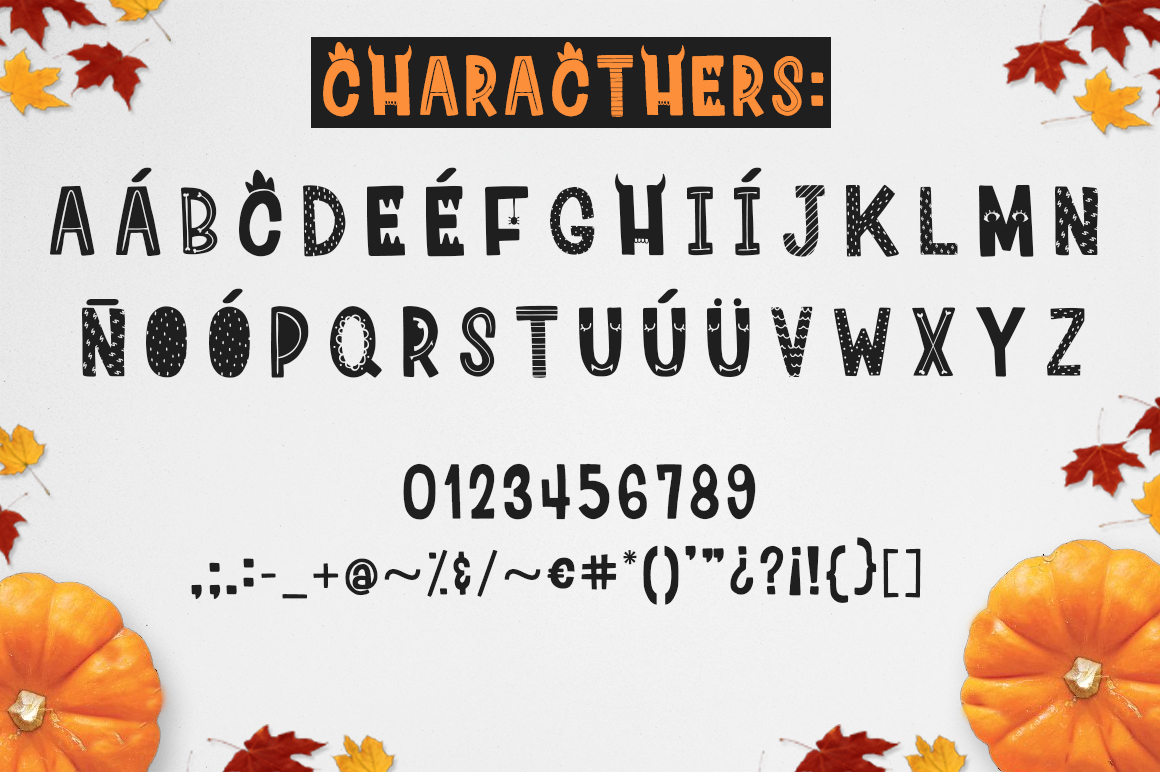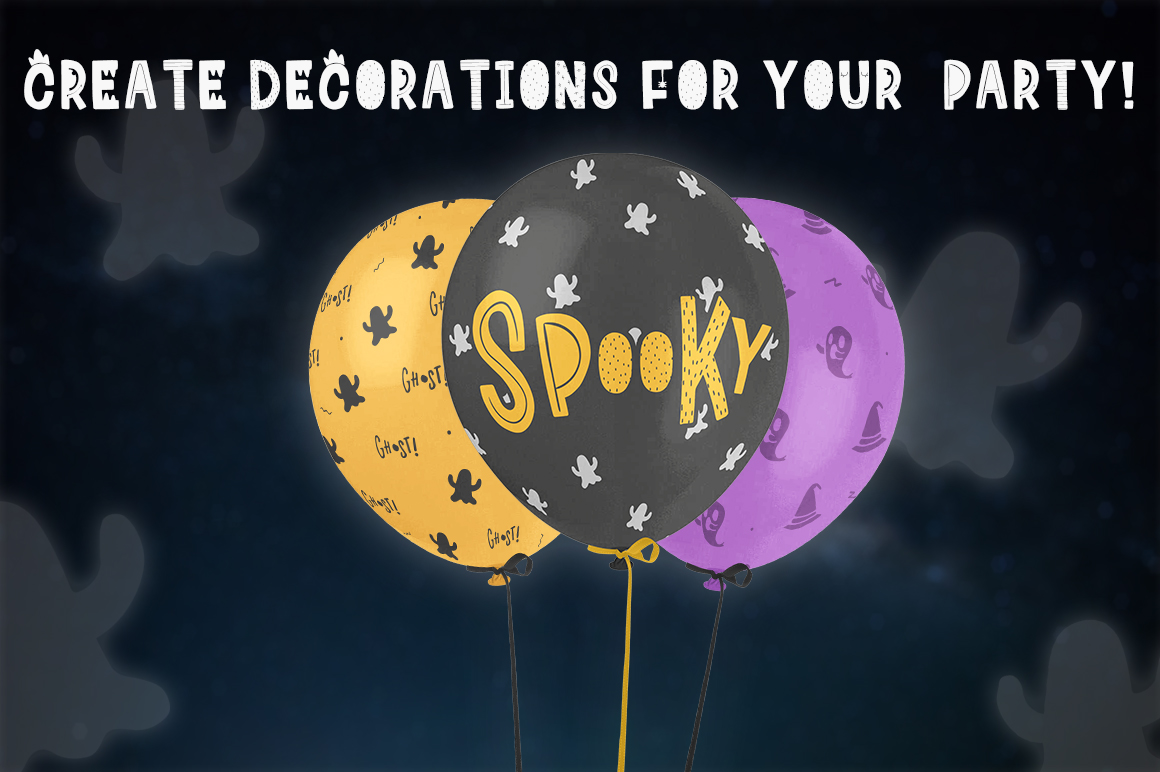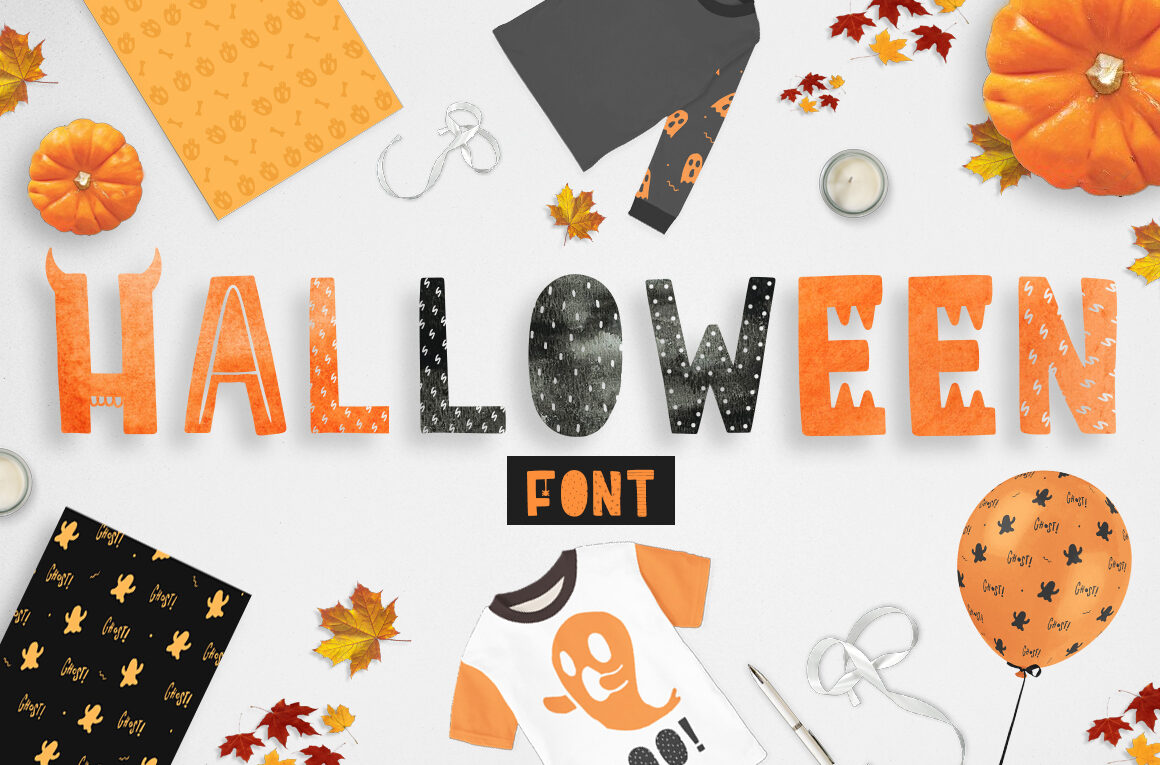
Getting Ready for a Spooktacular Halloween with Ha-Halloween Font
October is just around the corner, and we all know what that means: Halloween! The best and most fun holiday of the year is coming, and to help you get into the spooky spirit, we’re excited to present an awesome design kit that includes everything you’ll need to create some spooky and beautiful designs. This kit includes a font, brushes, patterns, and illustrations – perfect for creating invitations, merchandise, decor, flyers, and more!
Introducing the Ha-Halloween Font
The star of the show is the Ha-Halloween Font, a specially crafted typeface designed to capture the essence of Halloween. This font is not just any ordinary font; it’s a multilingual font that includes a range of characters to help you create spooky and festive designs. Whether you’re looking to create invitations, posters, or social media graphics, this font is just the thing you need to get your Halloween mood on!
What Makes the Ha-Halloween Font So Special?
The Ha-Halloween Font is designed with the Halloween enthusiast in mind. Its unique and playful style is sure to add a touch of spookiness to any design. Here are some features that make this font stand out:
• Multilingual characters: The font includes a range of characters that will help you create designs in multiple languages.
• Unique and playful style: The font’s design is inspired by the spooky and festive atmosphere of Halloween.
• Perfect for designs: The font is suitable for a wide range of designs, from invitations and posters to social media graphics and merchandise.
The Design Kit: A Comprehensive Collection
The design kit that comes with the Ha-Halloween Font is a comprehensive collection of design elements that will help you create amazing Halloween-themed designs. Here are some of the elements you can expect to find in the kit:
• Font: The Ha-Halloween Font, a multilingual font designed specifically for Halloween.
• Brushes: A set of brushes that you can use to add textures and effects to your designs.
• Patterns: A collection of patterns that you can use to create backgrounds, borders, and other design elements.
• Illustrations: A set of illustrations that feature Halloween-themed characters, objects, and symbols.
Ideas for Using the Ha-Halloween Font and Design Kit
The Ha-Halloween Font and design kit are perfect for a wide range of design projects. Here are some ideas to get you started:
• Invitations: Create spooky and festive invitations for Halloween parties, trick-or-treat events, and other Halloween-themed gatherings.
• Merchandise: Design Halloween-themed merchandise, such as t-shirts, mugs, and candy wrappers.
• Decor: Create designs for Halloween decorations, such as signs, banners, and window clings.
• Flyers: Design flyers for Halloween events, such as haunted houses, hayrides, and pumpkin patches.
Tips for Getting the Most Out of the Ha-Halloween Font and Design Kit
Here are some tips for getting the most out of the Ha-Halloween Font and design kit:
• Experiment with different designs: Don’t be afraid to try out different design ideas and combinations of design elements.
• Use the font and design elements together: The Ha-Halloween Font and design kit are designed to work together, so be sure to use them together to create cohesive designs.
• Customize the design elements: Feel free to customize the design elements to fit your specific needs and design style.
The Ha-Halloween Font and design kit are the perfect tools for designers and crafters who want to create spooky and festive designs for Halloween. With its unique and playful style, multilingual characters, and comprehensive design kit, this font is sure to be a hit with designers and Halloween enthusiasts alike. So why wait? Get ready to get into the Halloween spirit with the Ha-Halloween Font and design kit!